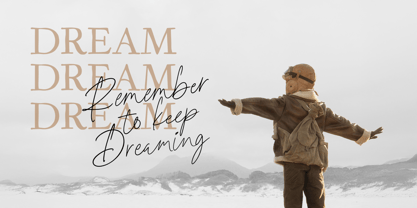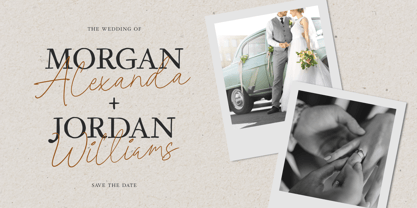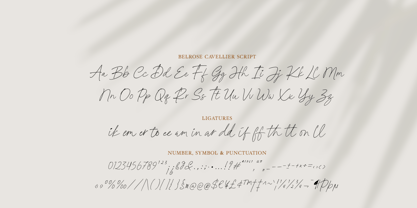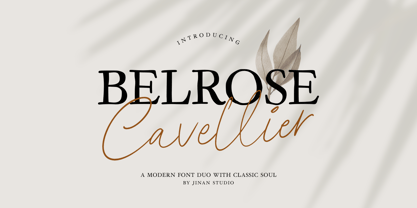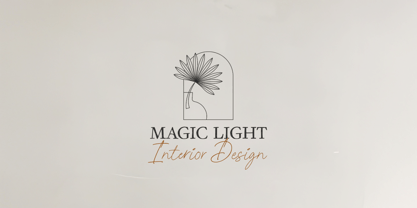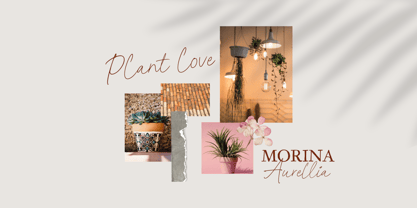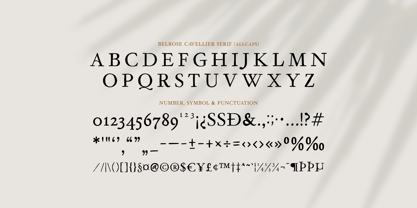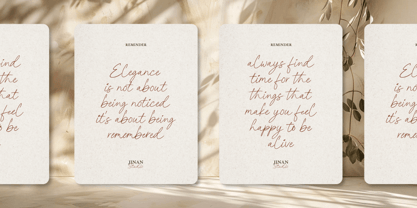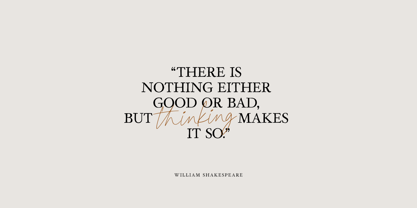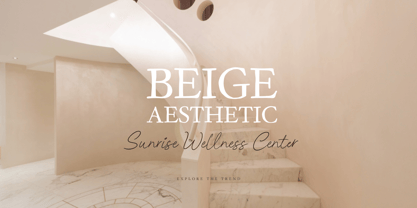
Belrose Cavellier
by Jinan Studio
The Belrose Cavellier Font Family was designed by Andi Syahdang, Ainun Jinan and published by Jinan Studio. Belrose Cavellier contains 2 styles and family package options. More about this family
Belrose Cavellier is a refined font duo that blends soft artistic beauty with strong, timeless character. This combination features an elegant script font paired with a rough serif, creating a perfect balance between grace and structure. Inspired by romantic aesthetics and classic heritage typography, Belrose Cavellier is ideal for branding, logo design, aesthetic quotes, editorial layouts, packaging, and Pinterest-style visuals. The flowing script adds warmth and personality, while the bold serif brings confidence and sophistication to your designs. Whether you’re creating a modern brand with a vintage soul or expressive quotes with an elegant touch, Belrose Cavellier delivers a versatile and premium typographic experience. Features A set of uppercase and lowercase glyphs (allcaps sans version) Number, symbol, and punctuation Multilingual Support Ligatures
Designers: Andi Syahdang, Ainun Jinan
Foundry: Jinan Studio